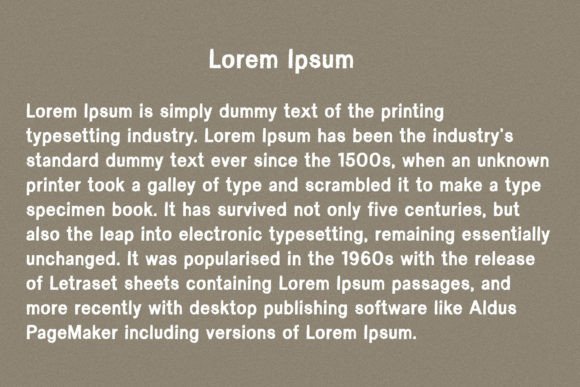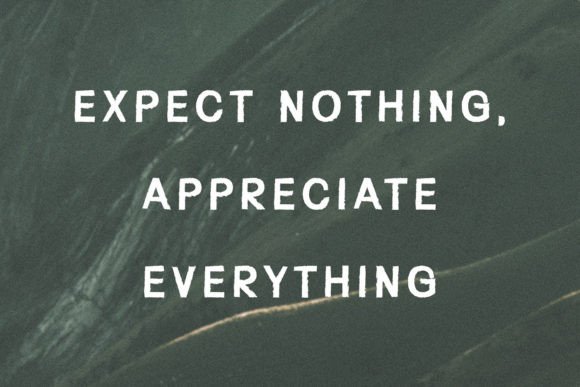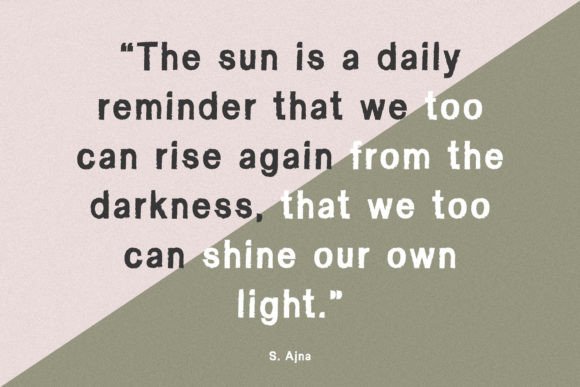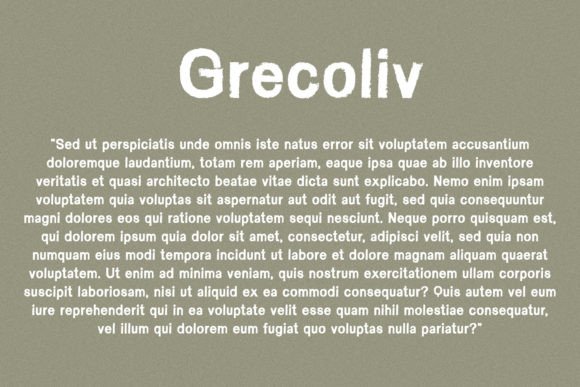
Introduction to Grecoliv Font
Grecoliv is a modern, trendy, and cool textured brush display font that can easily be matched to an incredibly large set of projects, no matter the occasion.
Grecoliv is great for various projects such as packaging, presentations, logo, headlines, lettering, posters, branding, quotes, titles, magazine headings, web layouts, advertising, invitations, packaging design, books, and nearly any creative design .
Key Features of Grecoliv Font
Why Choose Grecoliv Font?